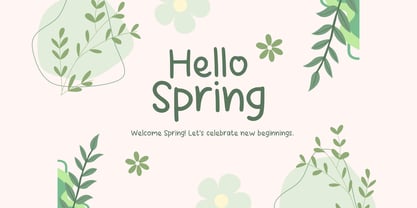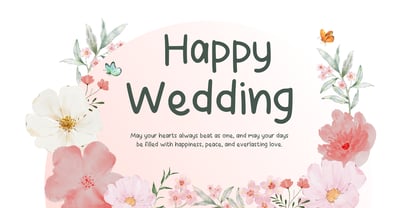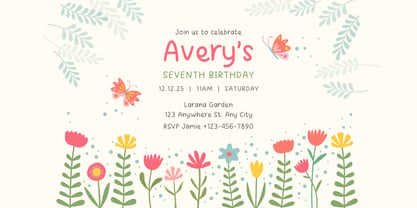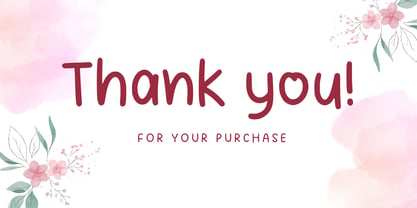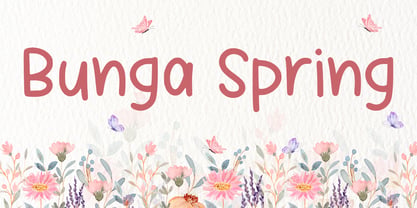
Bunga Spring
by Aisyah
Bunga Spring is a masterfully handcrafted font, radiating a casual yet refined aesthetic. Perfectly adaptable, it provides a touch of finesse to every context, whether for print or digital use. A breath of fresh air in the world of typographies, its graceful strokes mirror the beauty of nature. Bunga Spring’s versatility is its charm, seamlessly blending into any occasion and adding a sprinkle of artistic flair. Be it an invitation, product design, or a self blog, this font elevates your text with its unique handwritten appeal. Step into the world of design with Bunga Spring, where elegance meets functionality.
Designers: Nur Aiysah Amalia
Foundry: Aisyah